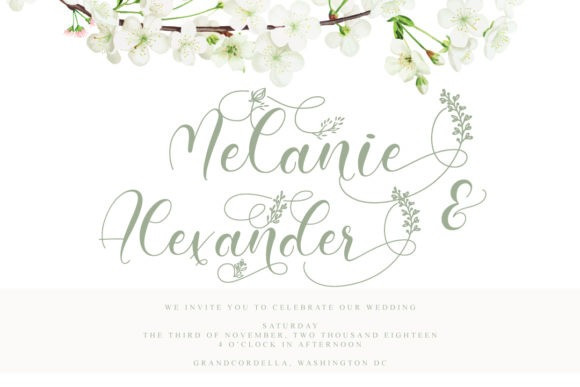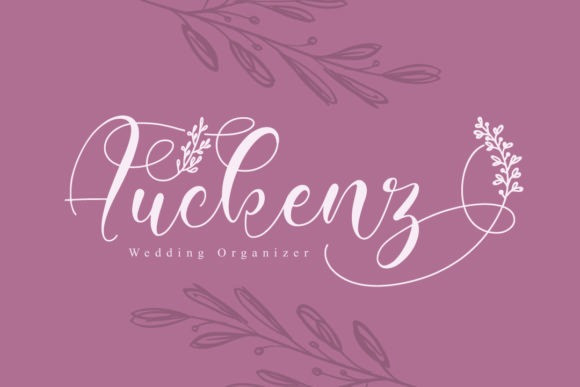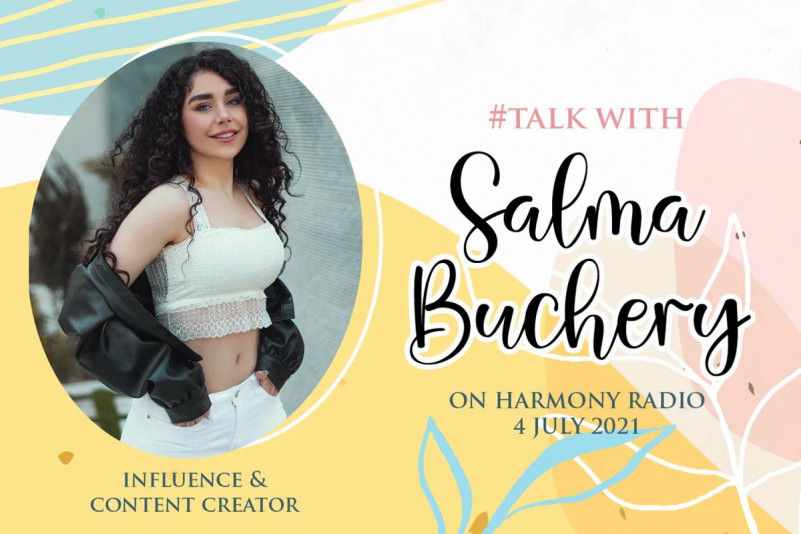
Amiela Handwritten Font
Amiela is a beautiful script font. It features an incredibly classic style, while still keeping a friendly feel. Fall in love with its authentic feel and use it to create gorgeous wedding invitations, beautiful stationary art, eye-catching social media posts, and cute greeting cards.